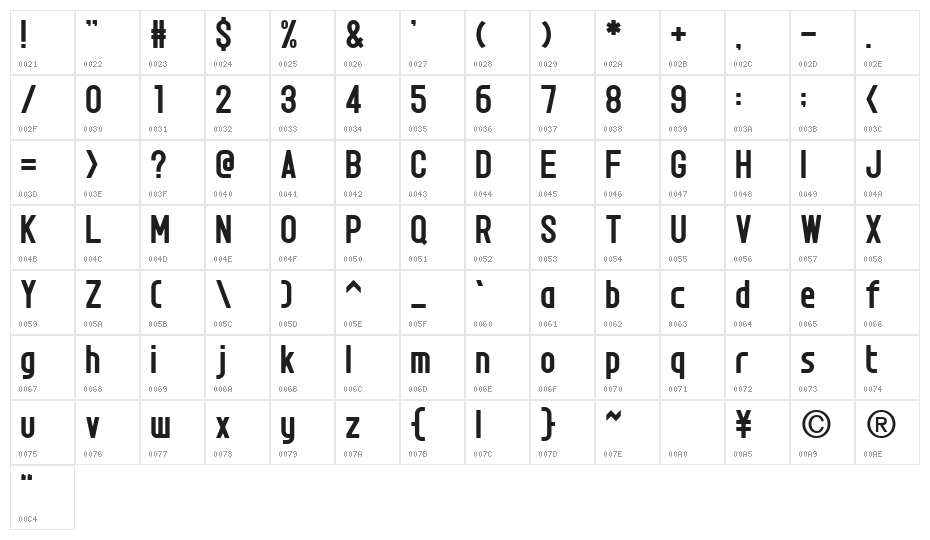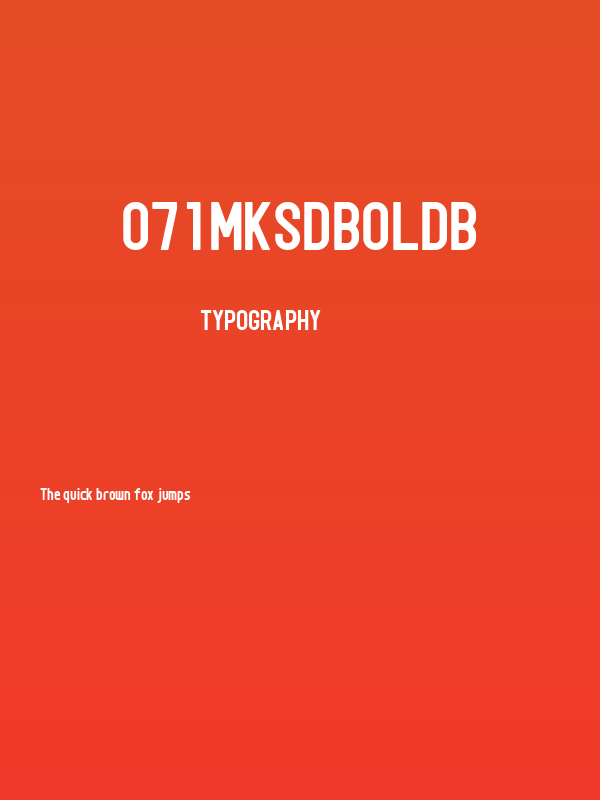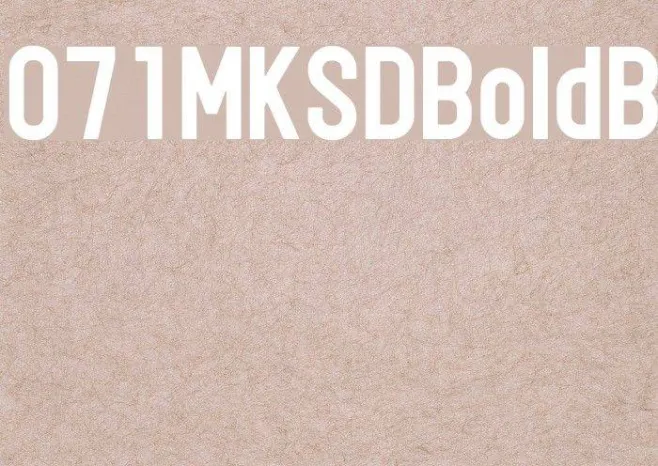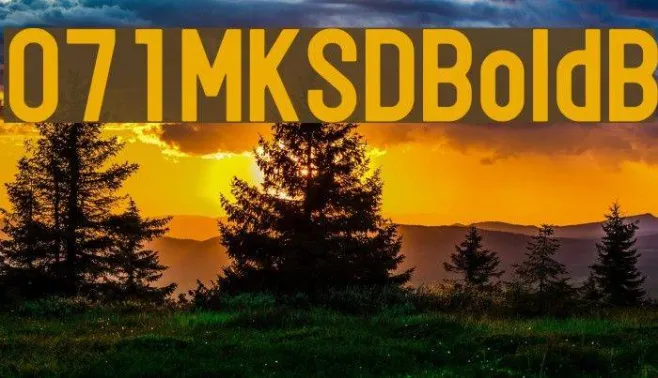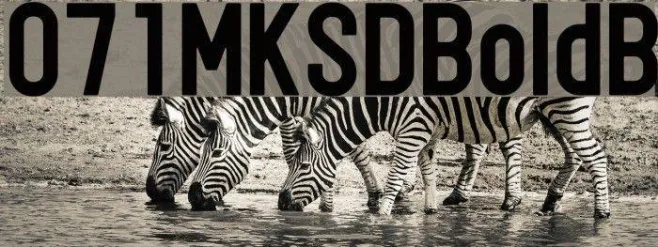
071MKSDBoldB Font
071MKSDBoldB Description
This font exhibits a bold and modern design with a strong geometric structure. The characters are uniformly thick, giving it a robust appearance. The uppercase and lowercase letters maintain a consistent height, contributing to a cohesive look. The numerals are clear and easily distinguishable, making them suitable for various applications. Special characters are well-defined, enhancing the font's versatility. The overall design is clean and straightforward, making it ideal for impactful headlines and attention-grabbing text.
| Proposed Projects | Ideal for branding, advertising, posters, and digital media where bold and clear text is required. |